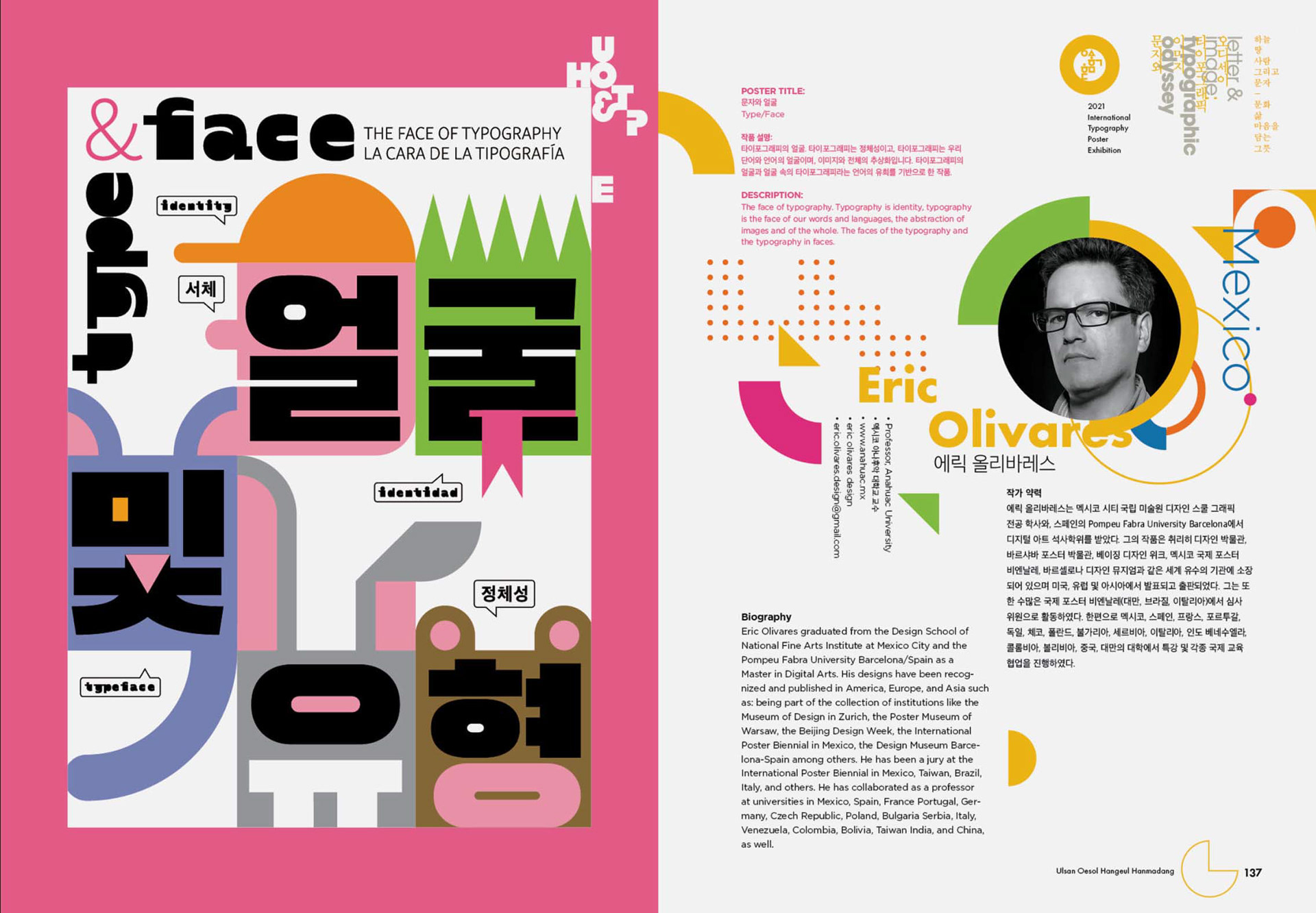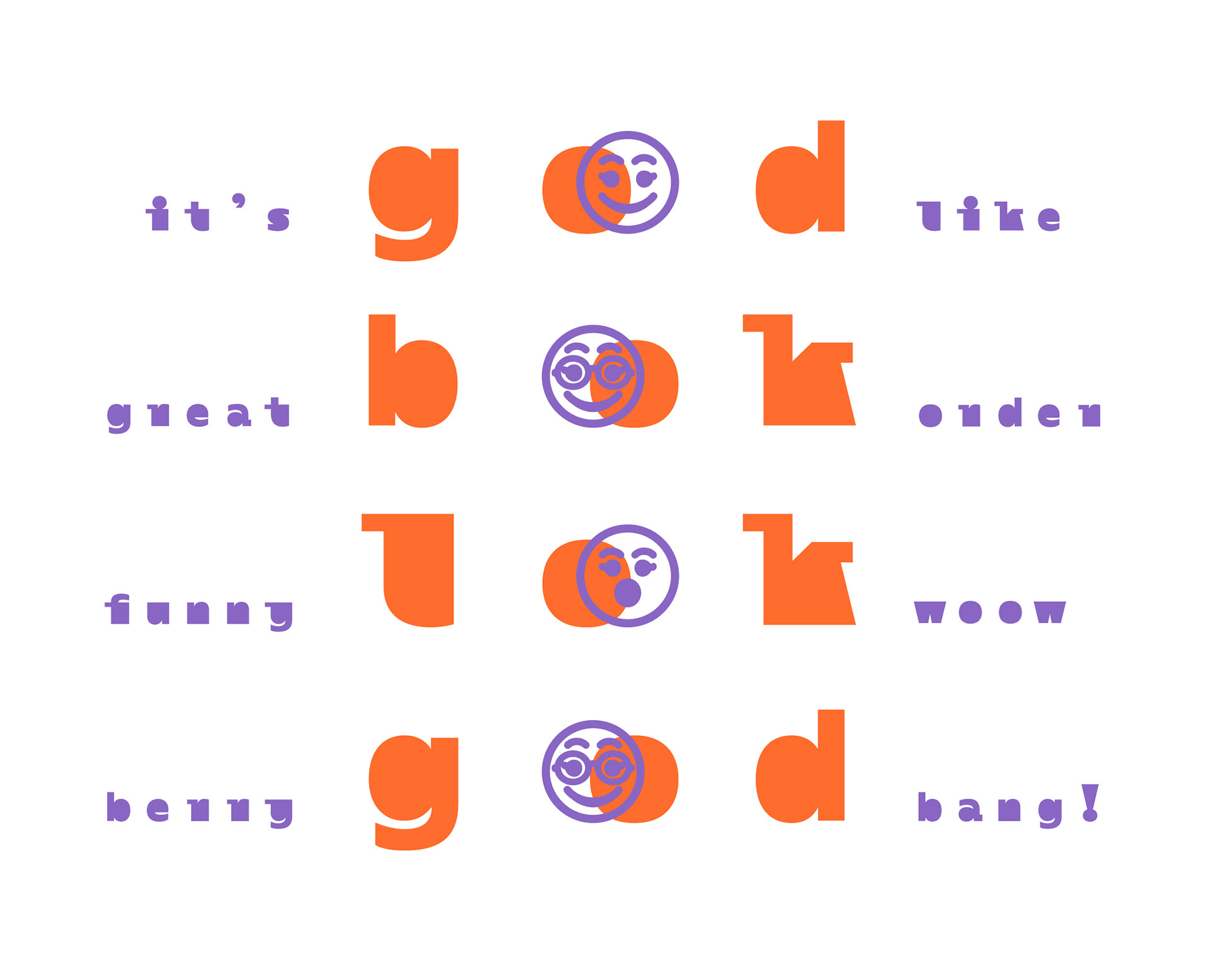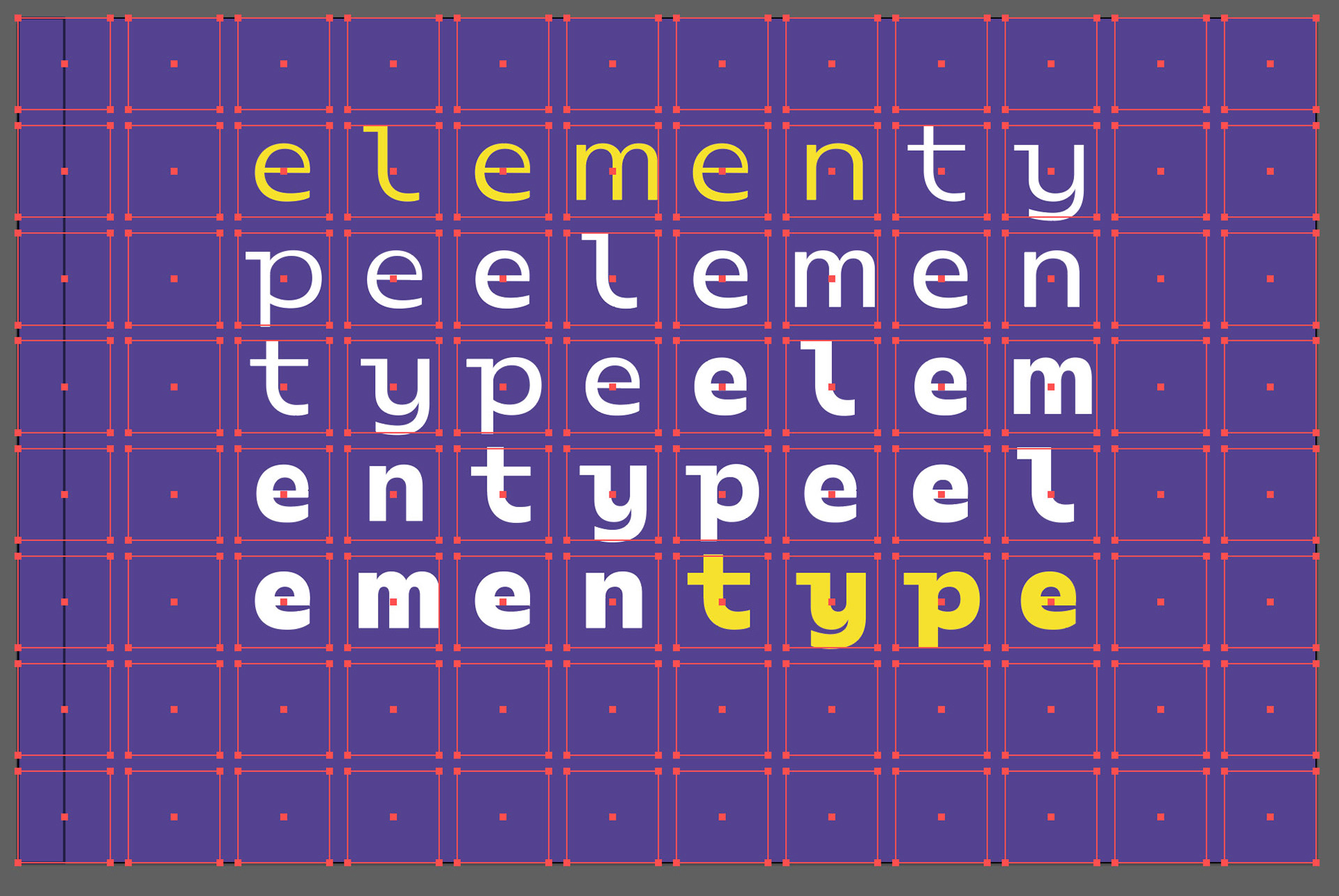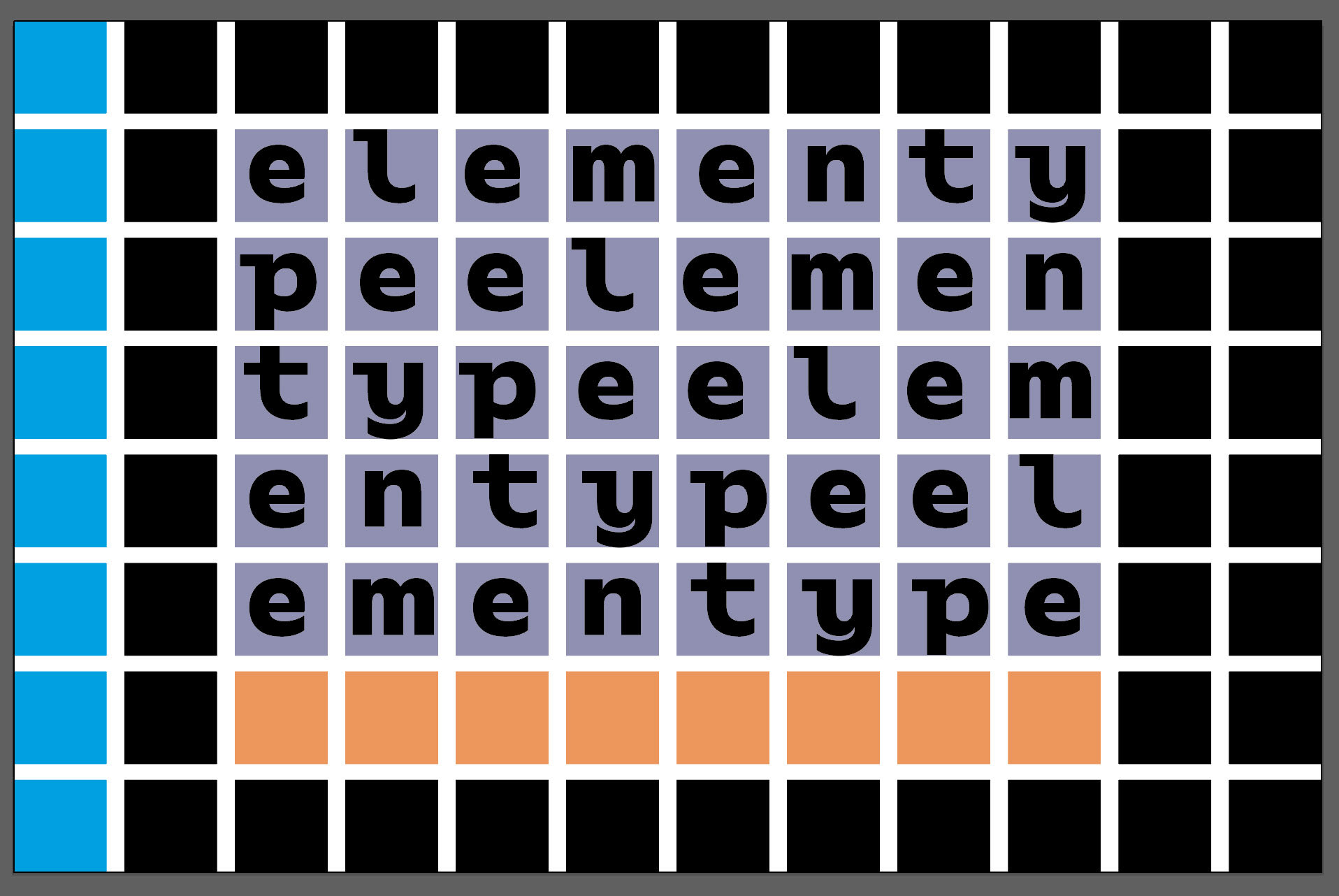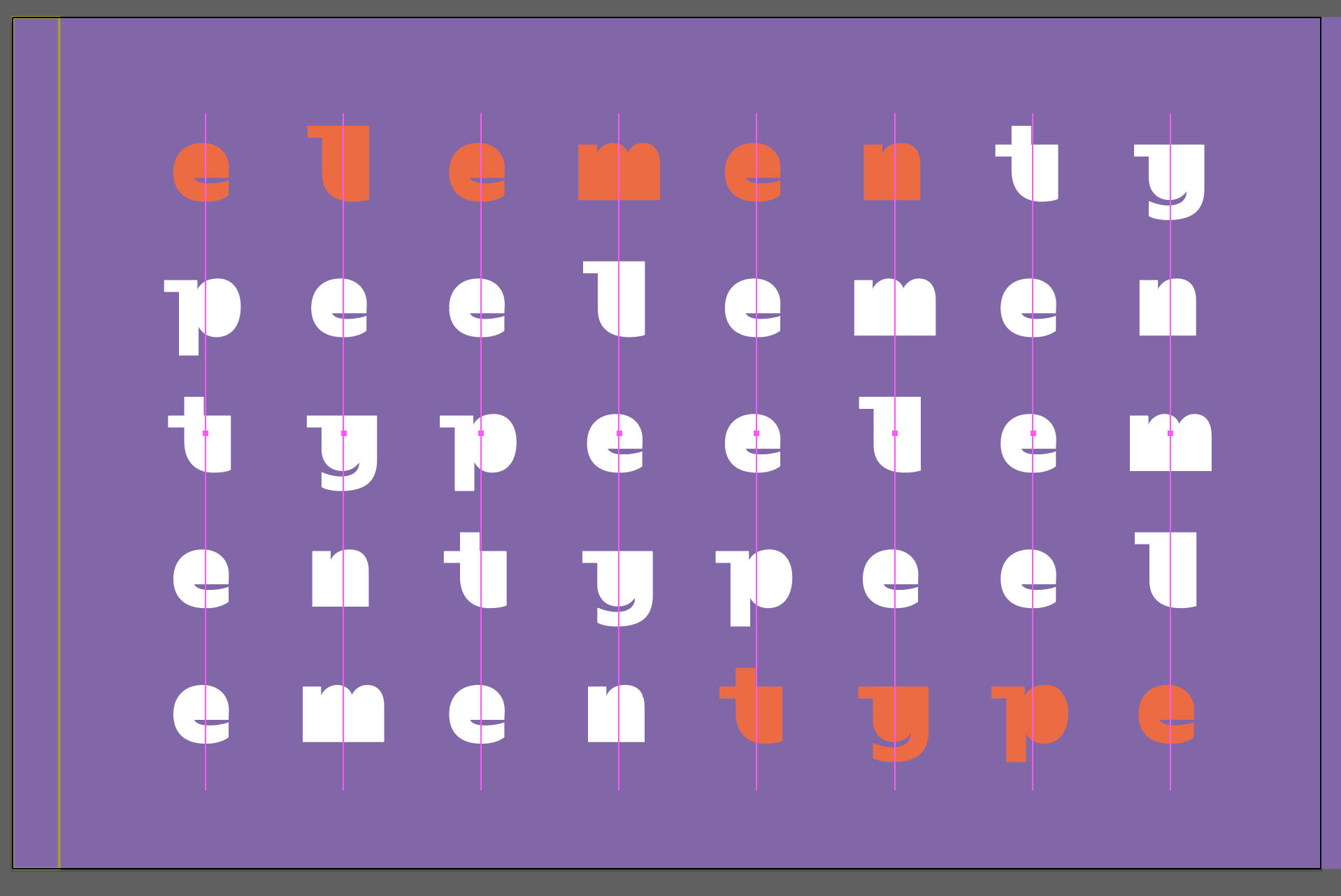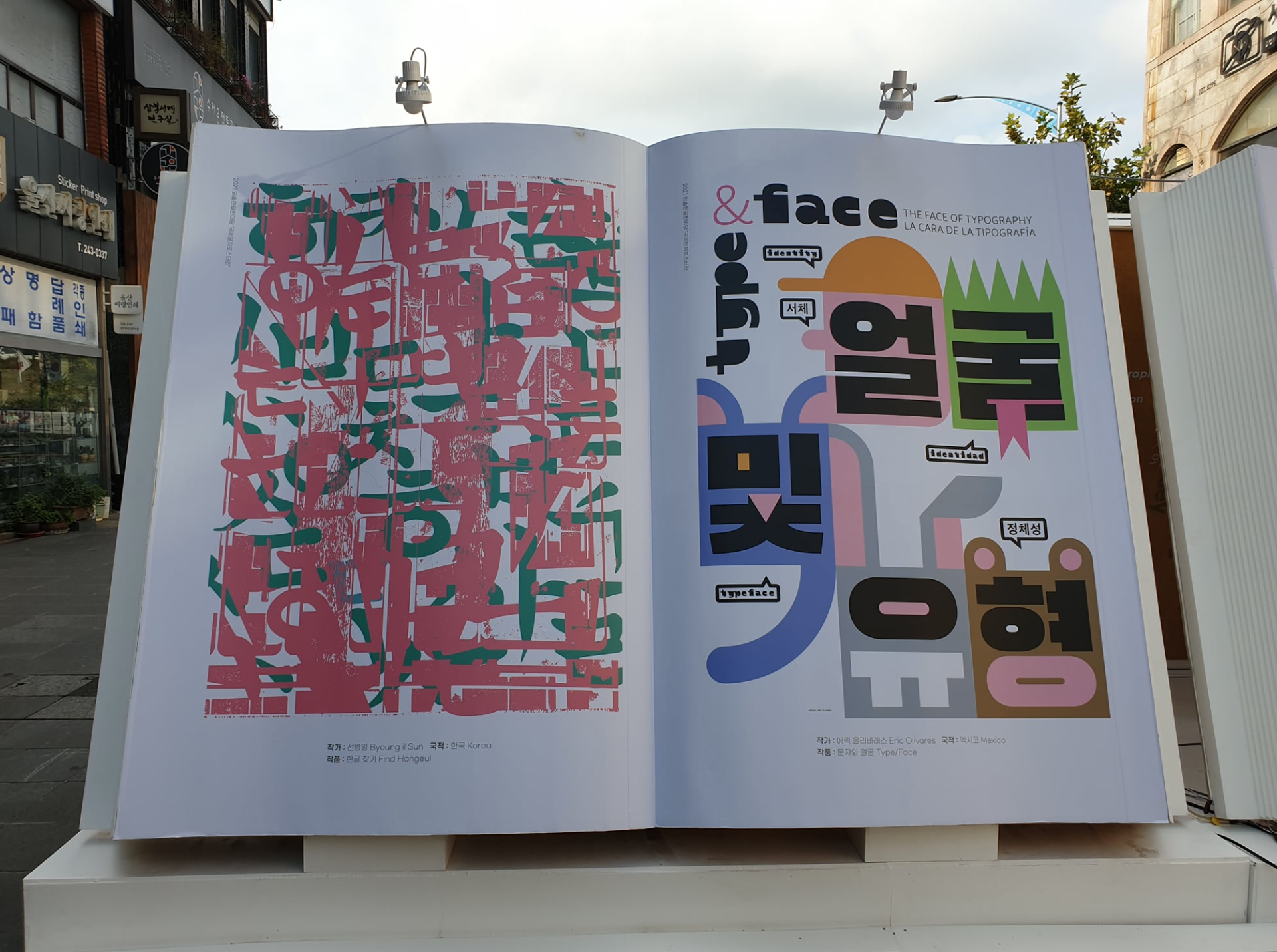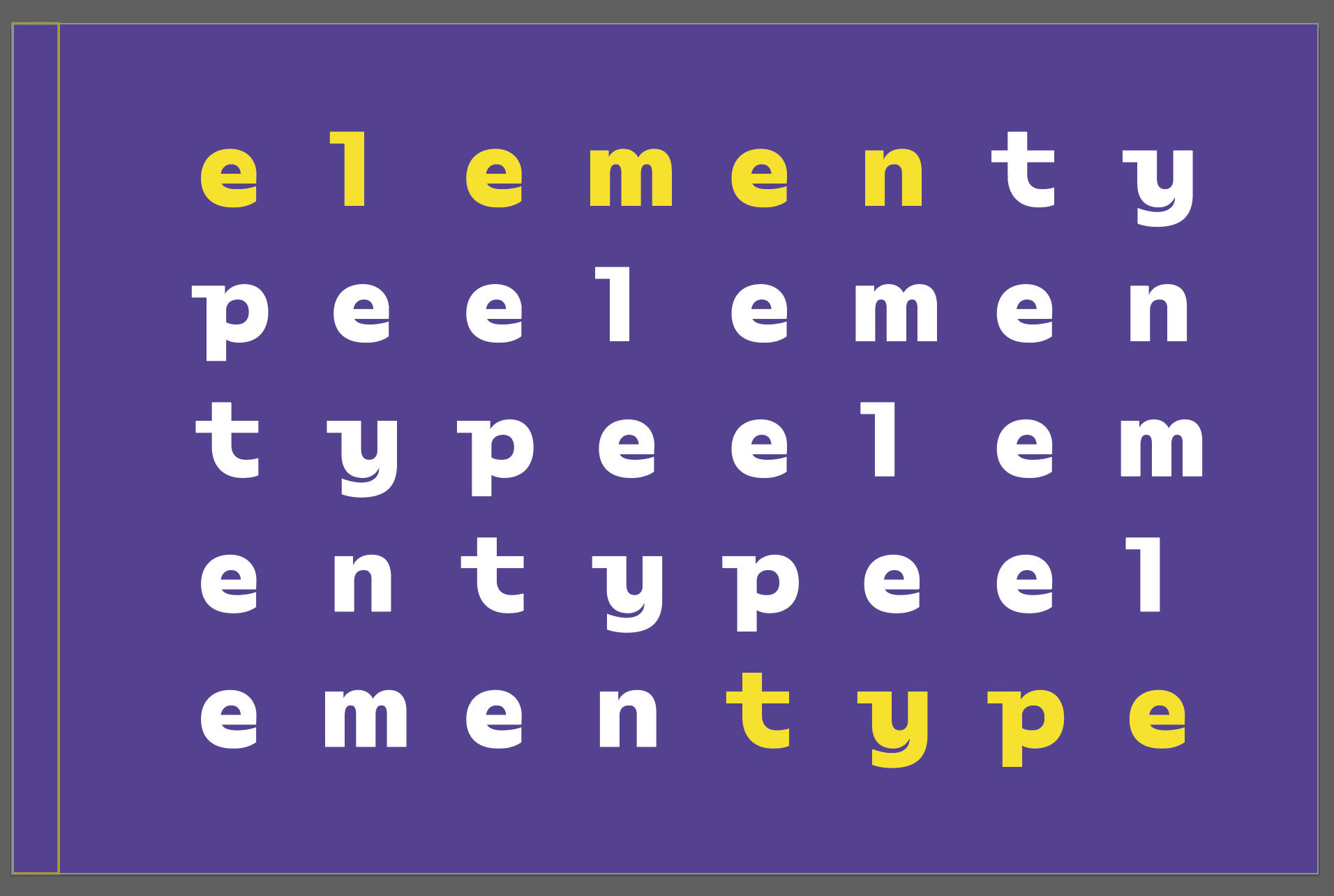
Elementype is a font for the Elementype book. The main idea was to work as a brand.
I ran several type design tests to find the right cover design path. I realized that I needed to remove information for it to work as a brand and decided to remove almost all the counter-forms of the letters. I explored, giving the letters a monospaced look so that they would occupy the same space on the grid vertically and decided to make their personality friendly as the language of the book.
Cover tests
Design and weight testing of the emojis that would be used in the publication and in the gift font.
Font in use
Oesol Hanmadang Ulsan 2021 International Typography Poster Exhibition
More than 50 renowned artists/ designers from 11 countries were invited to this exhibition, including prominent designer Eric Olivares Lira who uses Elementype on his poster.